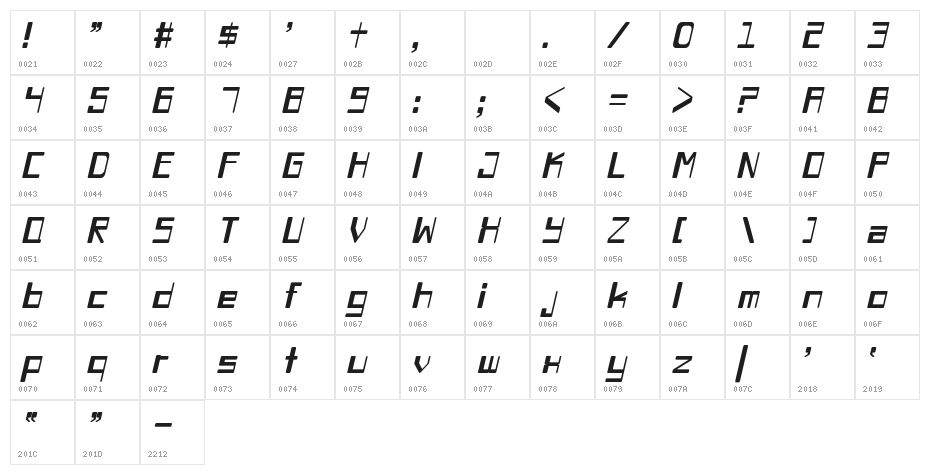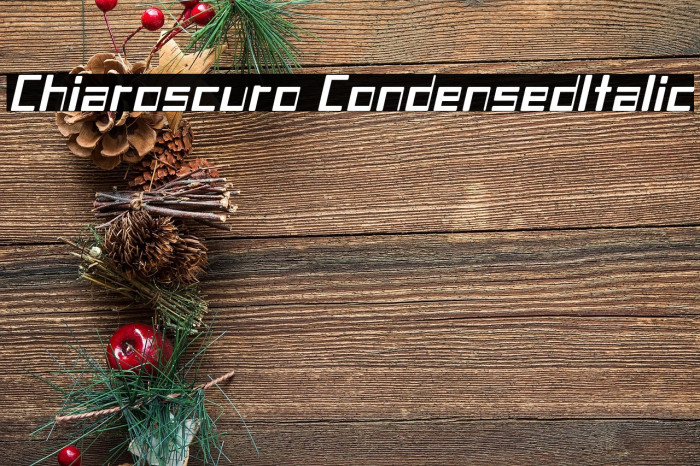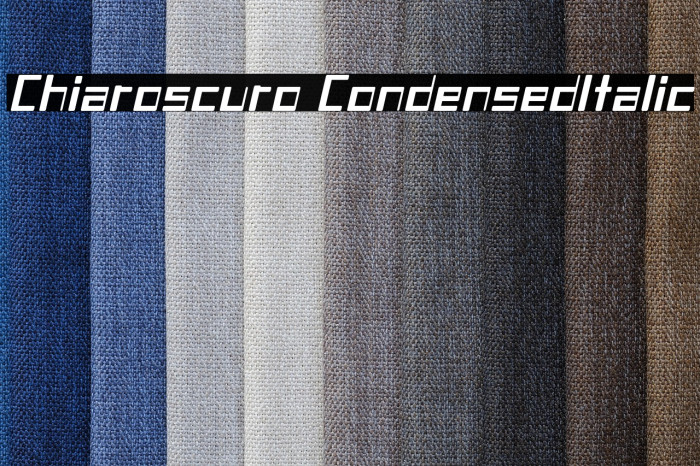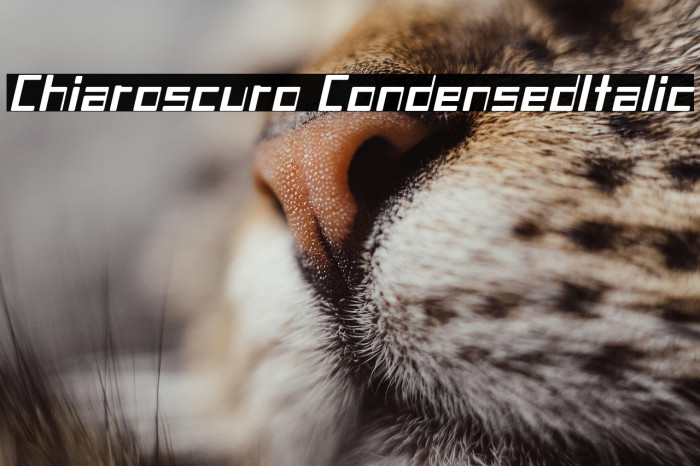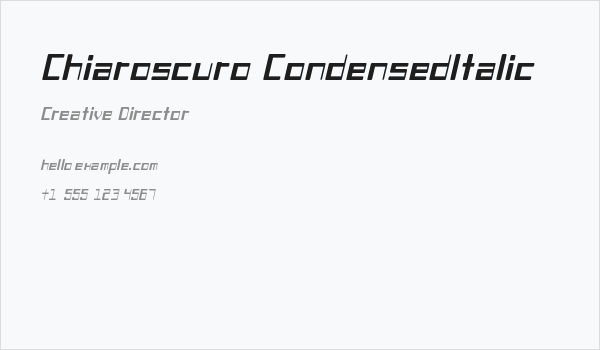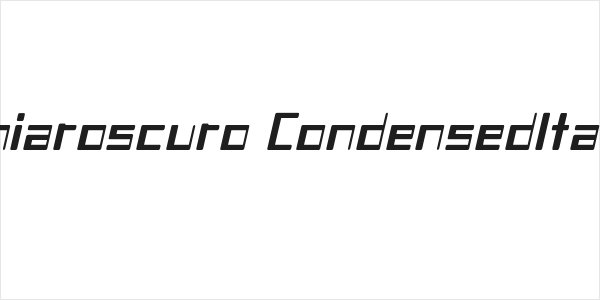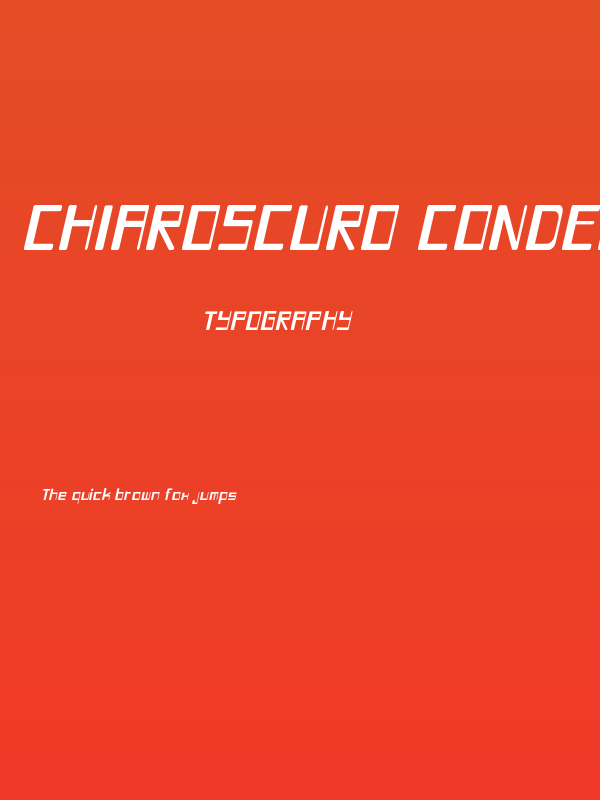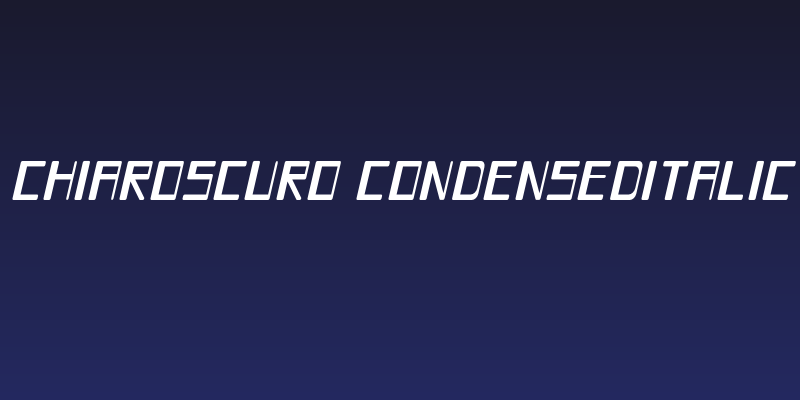
Chiaroscuro-CondensedItalic Font
Chiaroscuro-CondensedItalic Description
This font features a sleek and modern design with a condensed and italicized style. The characters are slightly slanted, giving a sense of motion and dynamism. The strokes are consistent in width, providing a uniform appearance across all characters. The uppercase letters are bold and assertive, while the lowercase letters maintain a cohesive look with a slightly softer touch. The numerals are clear and distinct, ensuring readability. Special characters are designed to complement the overall aesthetic, making this font versatile for various applications.
| Use Case | Headlines, Logos, Editorial Design |
| Proposed Projects | Ideal for branding, advertising, and editorial design where a modern and dynamic look is desired. |